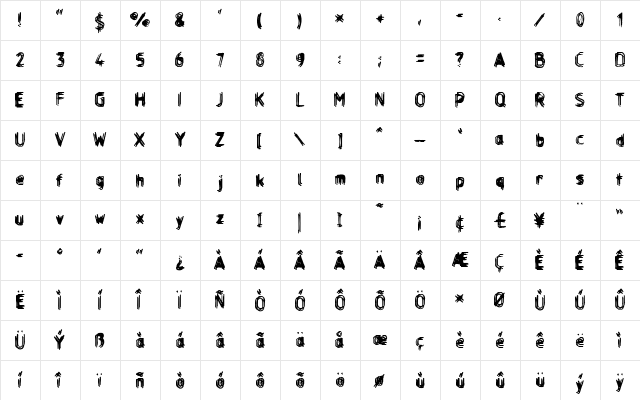
Layer is a composed and adaptable typeface that performs quietly and consistently across a wide range of design contexts.
Who designed the Layer Regular font?
This font was published by Guillaume-Ulrich Chifflot for Number Nine. Check the technical specs section for copyright and designer details.